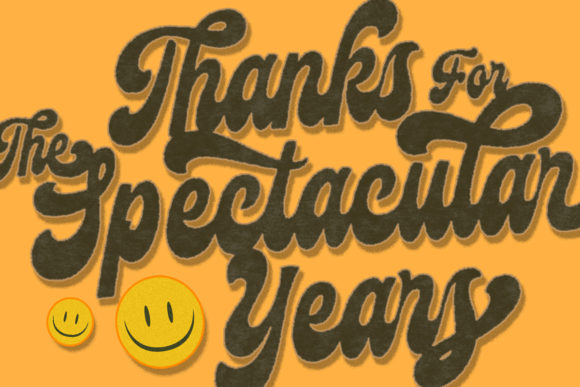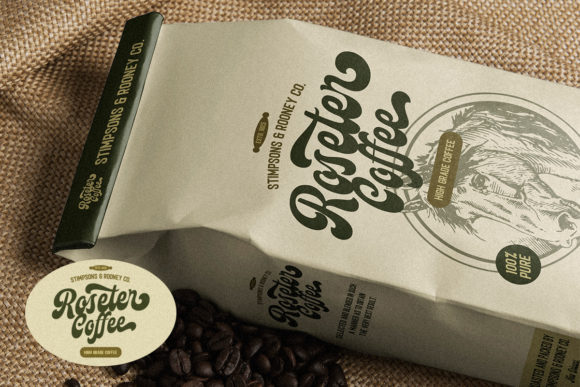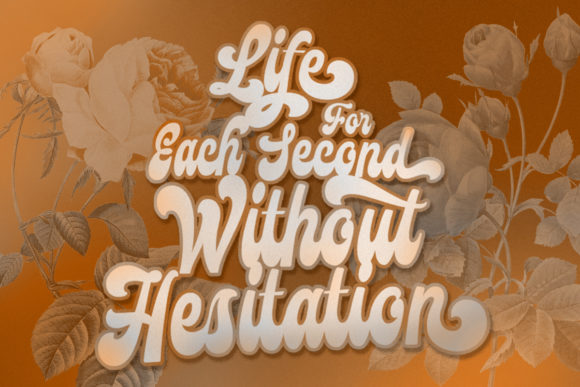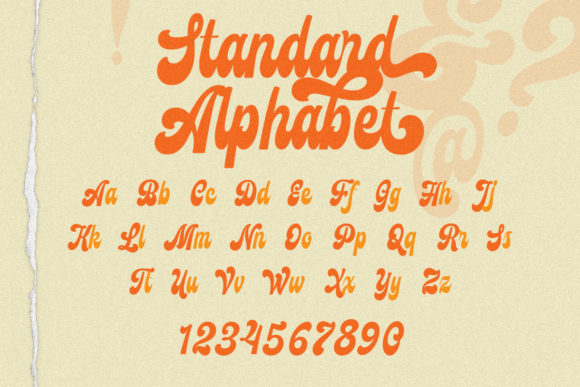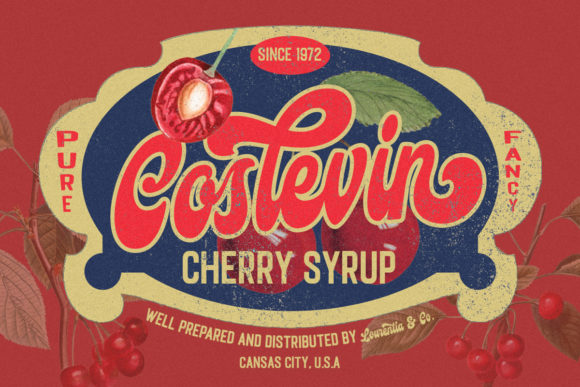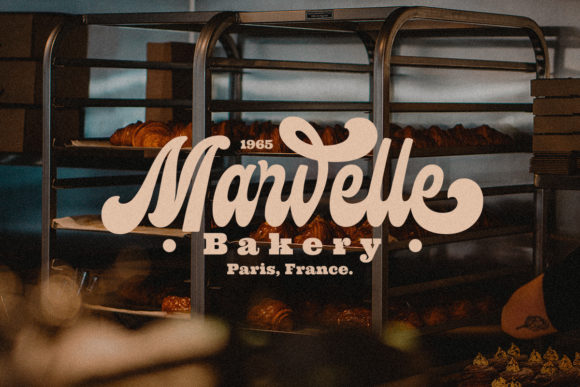
Mayburn Font
About Mayburn Font
Mayburn is a bold, retro styled handwritten font. This font reads as strong, confident, and dynamic and can add tons of nostalgic character to your designs.